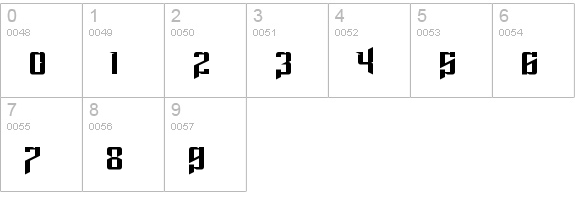
Lord Juusai Rises Regular is the standard, neutral variant in the Lord typeface family \xE2\x80\x94 well suited to general body text, paragraphs, and standard typographic work.
Lord Juusai Rises Regular font is a powerful and elegant typeface that exudes sophistication and class. With its intricate details and strong lines, this font is perfect for creating eye-catching headlines, elegant invitations, and stylish branding materials. The timeless design of Lord Juusai Rises Regular font makes it a versatile choice for a wide range of projects, from luxury branding to editorial design. And the best part? Lord Juusai Rises Regular font is available to download for free at FontsMarket.com! Don't miss out on this opportunity to add a touch of luxury to your designs with this stunning font. Download it now and unleash your creativity with Lord Juusai Rises Regular font.